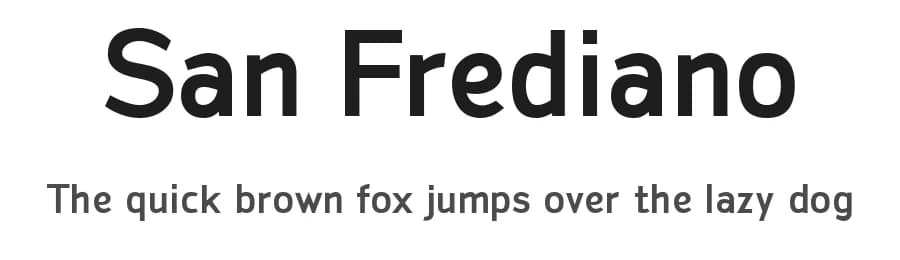
About San Frediano Font
San Frediano is a Geometric Sans Serif Font inspired by the famous neighborhood in Florence where is the Studio Monocromo.
San Frediano hides a lot of small details in its shapes which are visible at large size, just like the streets of the neighborhood hides surprises at every turn.
The height difference between Uppercase and Smallcase make it a good Web Font also suitable in typography, useful as Display or Text Font for newspaperΒs headline or text, advertisings, corporate identity and much more.